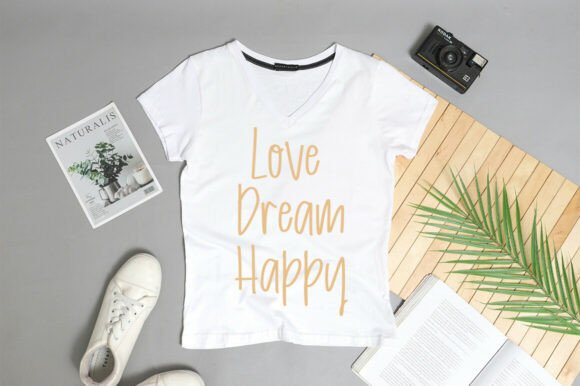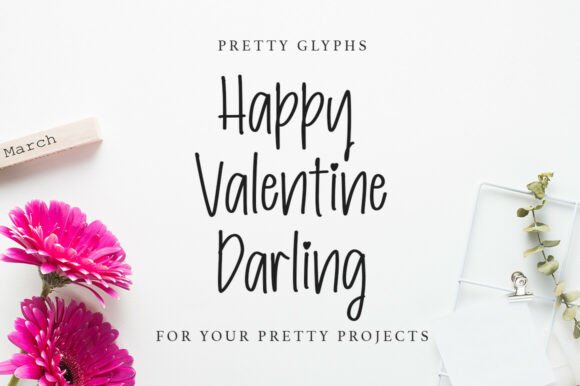
Introducing Flowline Font: The Ultimate Hand-Sketched Brush Font
Are you tired of using the same old fonts in your designs? Do you want to add a touch of raw power, stylish charm, and expressive freedom to your work? Look no further than Flowline Font, the hand-sketched brush font that’s taking the design world by storm. With its unique blend of artisanal texture and fluidity, this font is the perfect companion for innovative minds seeking to inject robust personality and honest authenticity into their work.
The Inspiration Behind Flowline Font
Flowline Font takes its roots from genuine brush-style handwriting, offering a platter of naturally-built characters that are brimming with vigor and fluidity. Each letter is a showcase of artisanal texture, revitalizing your designs with a breathtaking breath of life. The font’s creator aimed to capture the essence of traditional brush writing, while infusing it with a modern twist. The result is a font that’s both carefree and chic, perfect for designers who want to add a touch of personality to their work.
What Makes Flowline Font So Special?
So, what sets Flowline Font apart from other fonts on the market? Here are just a few reasons why this font is a game-changer:
- Unique Artisanal Texture: Each letter in Flowline Font is hand-sketched, giving it a unique texture that’s reminiscent of traditional brush writing.
- Fluidity and Movement: The font’s fluid lines and curves give it a sense of movement and energy, making it perfect for designs that need to convey a sense of dynamism.
- Robust Personality: Flowline Font has a strong, confident personality that’s perfect for designers who want to make a statement.
- Expressive Freedom: With its unique blend of artisanal texture and fluidity, Flowline Font gives designers the freedom to express themselves in new and exciting ways.
Who is Flowline Font For?
Flowline Font is perfect for:
- Graphic Designers: Whether you’re working on a branding project or a social media campaign, Flowline Font is a great choice for designers who want to add a touch of personality to their work.
- Crafters and Makers: If you’re a crafter or maker looking for a font that will help your products stand out, Flowline Font is a great choice.
- Marketing and Advertising Professionals: Flowline Font is perfect for marketing and advertising professionals who want to create eye-catching campaigns that will leave a lasting impression.
How to Use Flowline Font
Using Flowline Font is easy. Here are a few tips to get you started:
- Pair it with Other Fonts: Flowline Font pairs well with other fonts, so don’t be afraid to experiment with different combinations.
- Use it for Headlines: Flowline Font is perfect for headlines and titles, where its bold, confident personality can really shine.
- Add it to Your Branding: If you’re looking for a font that will help your brand stand out, Flowline Font is a great choice.